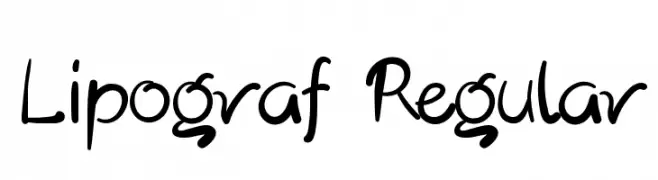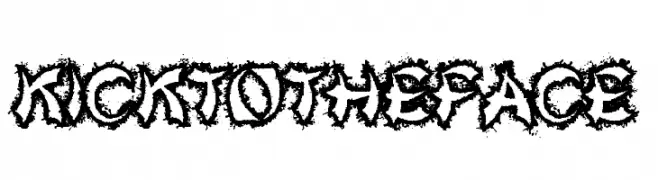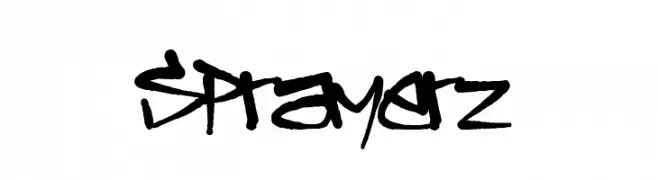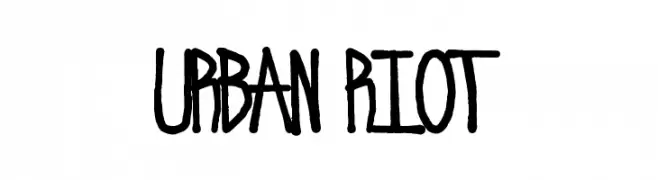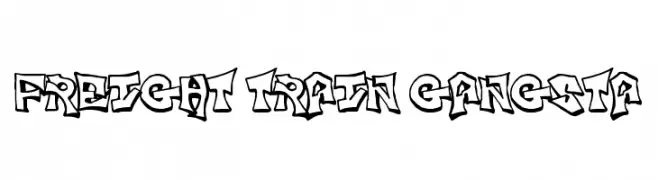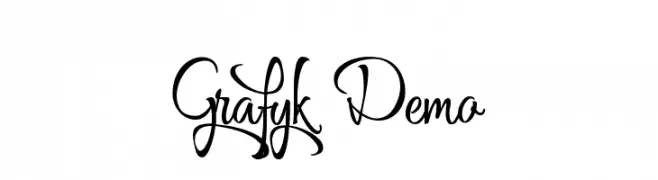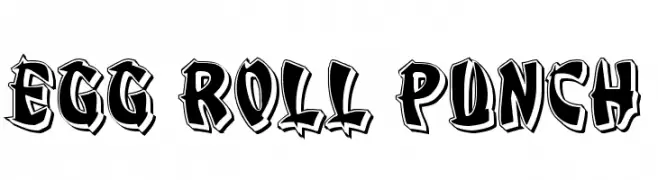
A playful, bold handwritten font with smooth, flowing curves.
A bold, spiky font with a graffiti-like, energetic style.
A bold, dynamic font with sharp, angular lines and a modern, energetic style.
A bold, graffiti-inspired font with dynamic and expressive strokes.
A bold, graffiti-inspired font with a hand-drawn, urban style.
A bold, graffiti-inspired font with exaggerated curves and sharp angles.
An elegant script font with flowing, ornate characters and intricate swashes.
A bold, graffiti-style font with angular, dynamic shapes.
An elegant script font with flowing, interconnected letters and ornate uppercase characters.
A bold, graffiti-inspired font with a dynamic and energetic style.